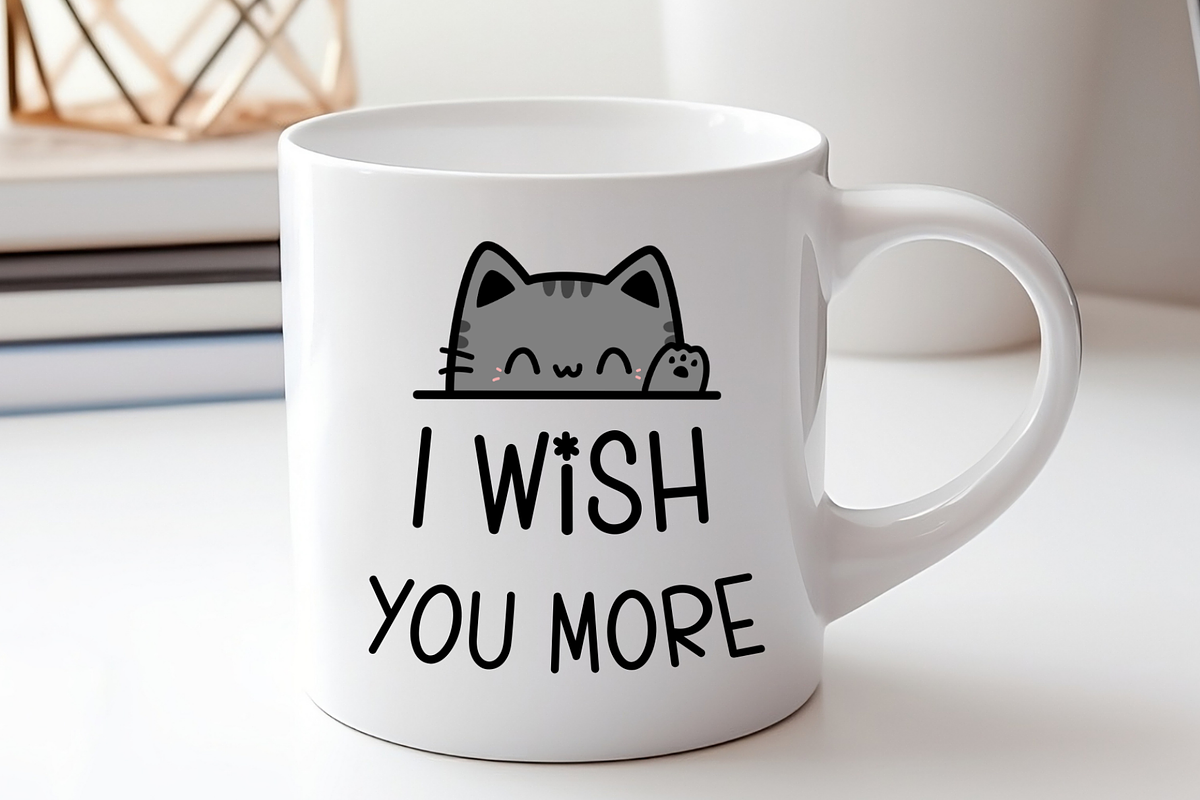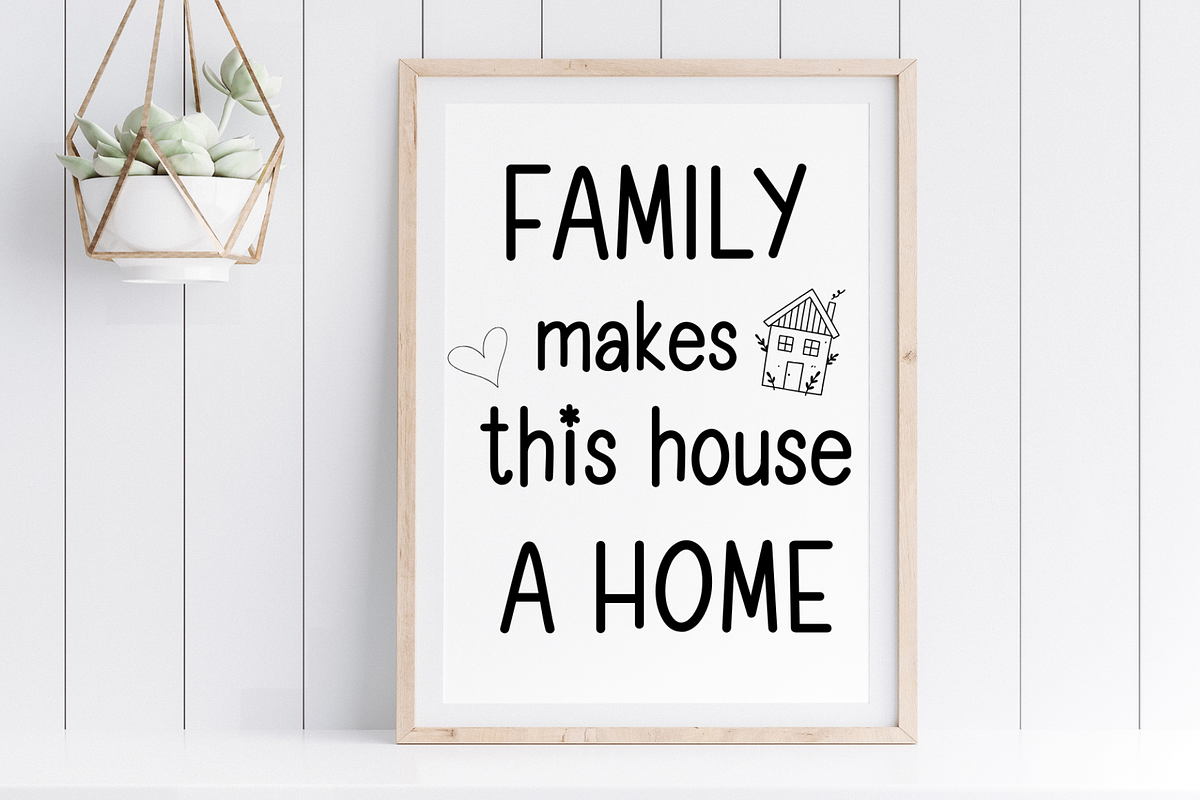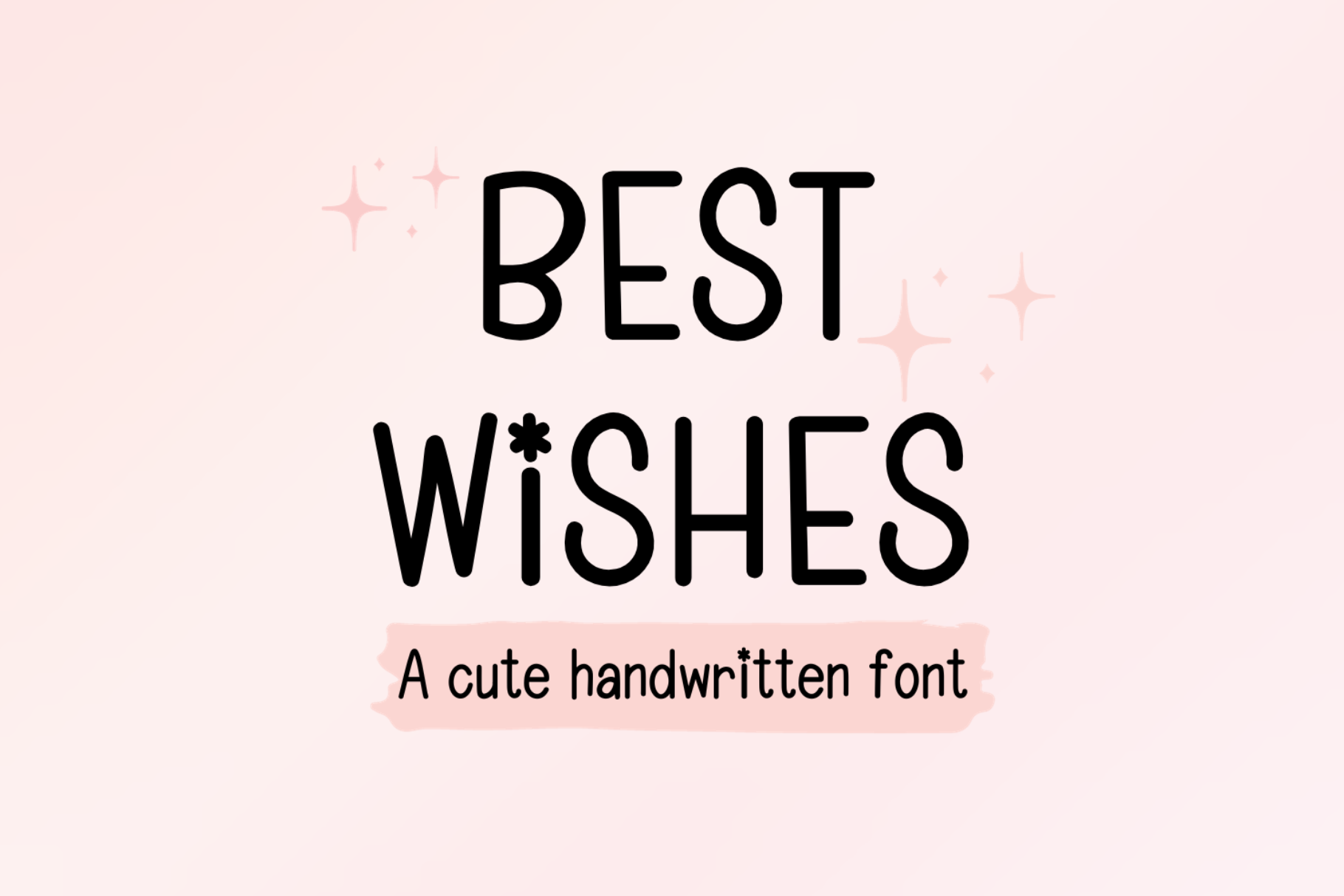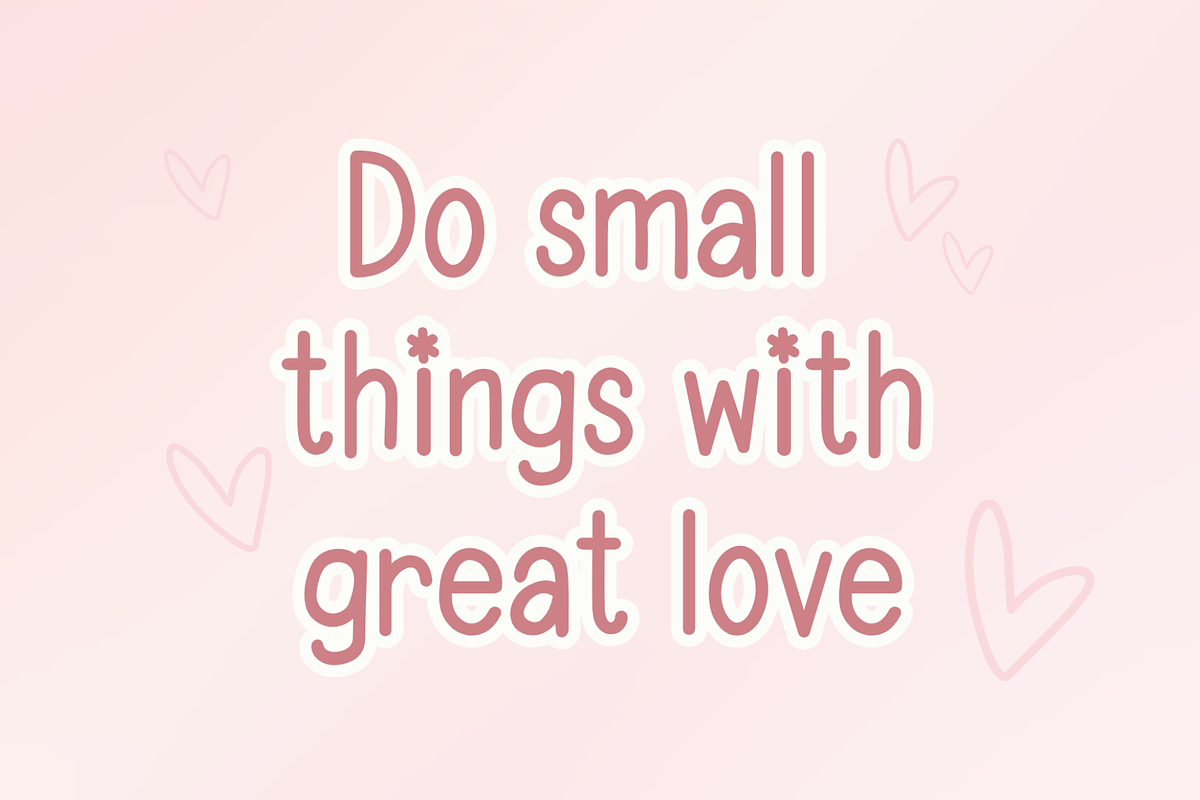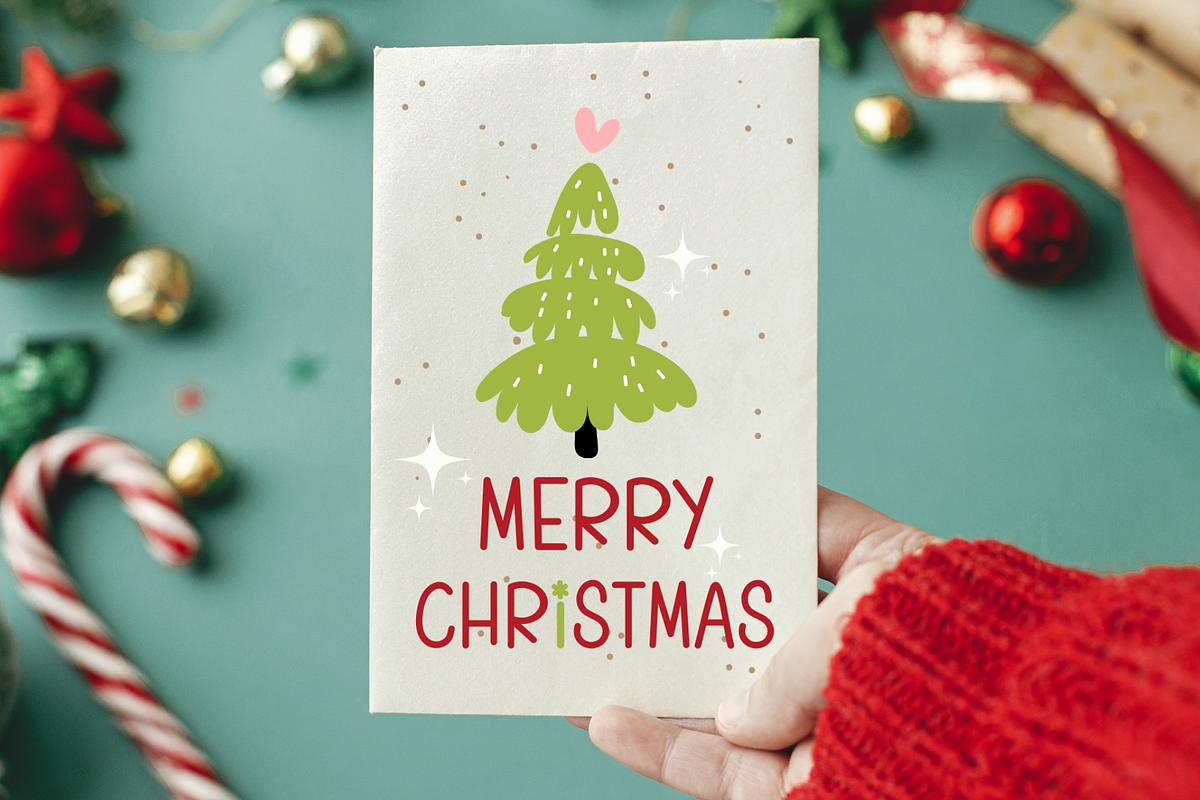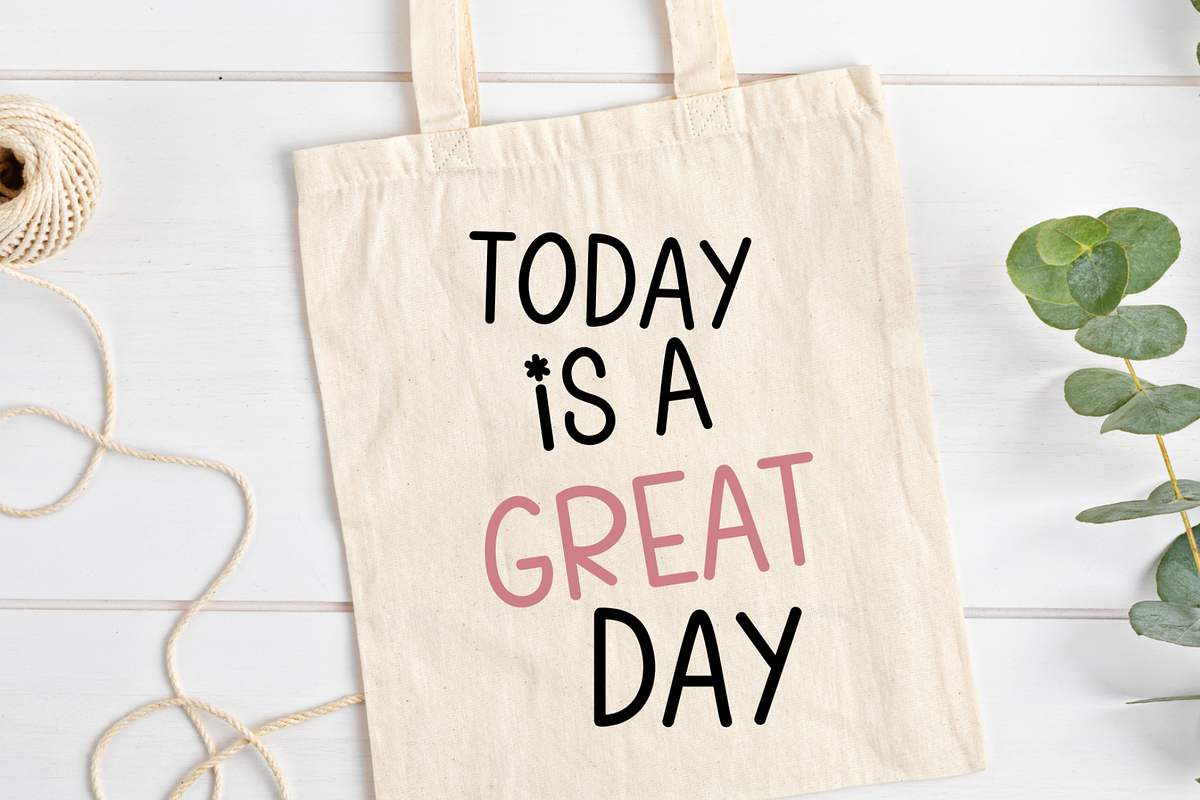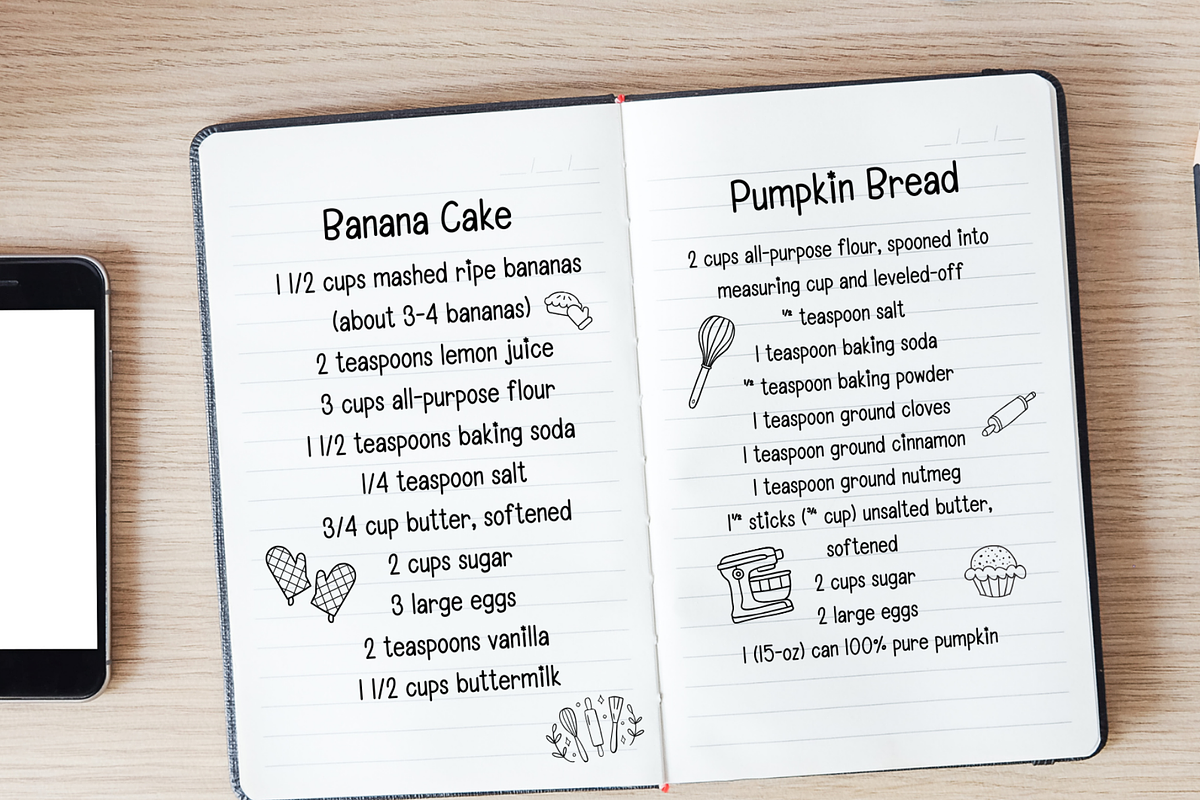
Best Wishes Cute Handwritten Font
Best Wishes is a handwritten font that is cute , playful , neat and clean. It is good for digital prints, greeting cards, logo, quotes for facebook and Instagram, Goodnote, planner, journal and any occasion presentations.